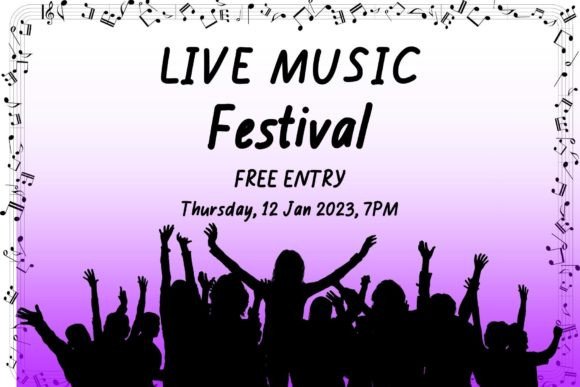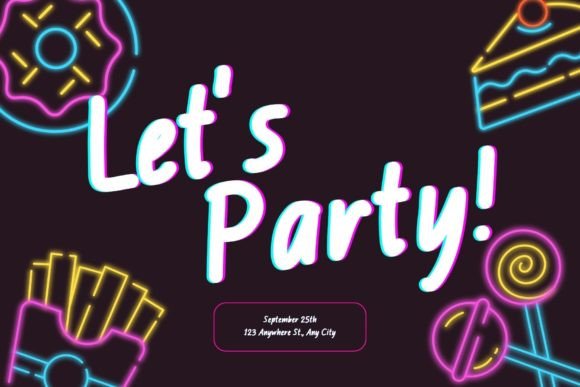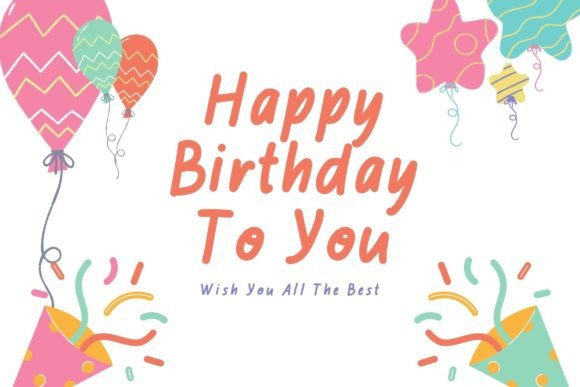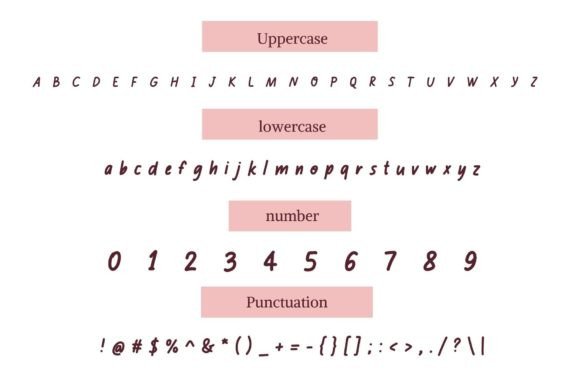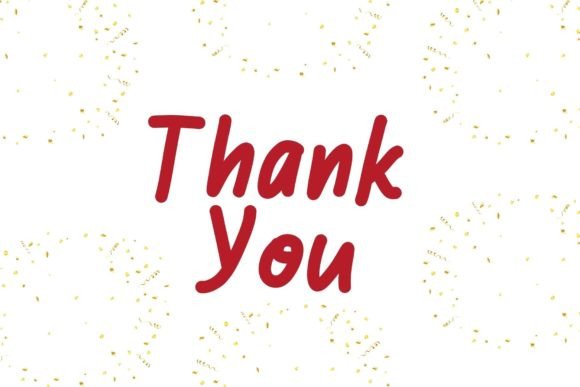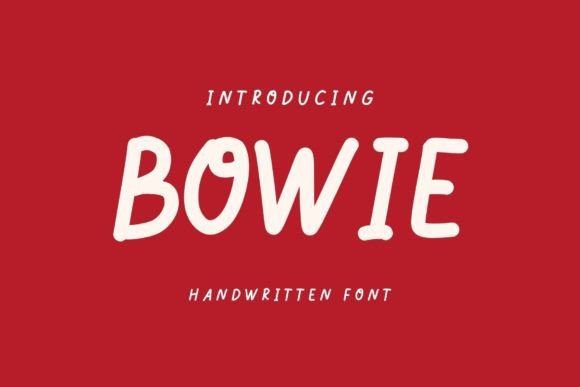
The Bowie Font: A Cute Handwritten Companion for Your Creative Projects
I still remember the design project that led me to discover the Bowie font. I was working on a whimsical branding campaign for a children’s party planning service, and I was struggling to find the perfect font that embodied playfulness and authenticity. That’s when I stumbled upon Bowie, a cute handwritten font that instantly captured the tone I was aiming for.
An Honest Review of Bowie Font
So, what makes Bowie a great addition to your design toolkit? Here are some things I love about this font:
• ✨ Playful and authentic feel: Bowie has a unique, hand-crafted look that adds a personal touch to any design.
• ✅ Highly versatile: This font is perfect for a wide range of projects, from blog posts and logos to invitations and photo albums.
• 💫 Elegant yet casual: Bowie strikes the perfect balance between sophistication and playfulness, making it suitable for various design contexts.
While Bowie is an excellent font, it’s not without its quirks. Here are a few things to keep in mind:
• 🤔 Limited use in formal contexts: Due to its playful nature, Bowie might not be the best choice for formal or corporate designs.
• ⚠️ Glyph limitations: While Bowie has a wide range of glyphs, it might not have every special character or symbol you need.
The Story Behind Bowie Font
Bowie was designed with the intention of creating a friendly, approachable font that captures the essence of handwriting. The designer aimed to create a font that feels both personal and authentic, perfect for creative projects that require a touch of warmth and playfulness.
Q: What makes Bowie a good choice for branding?
A: Bowie’s unique, handwritten look adds a personal touch to any brand, making it perfect for businesses that want to stand out and showcase their personality.
Q: Is Bowie suitable for body text?
A: While Bowie is a beautiful font, it’s best suited for headlines, titles, and short paragraphs. For longer body text, you might prefer a more traditional font.